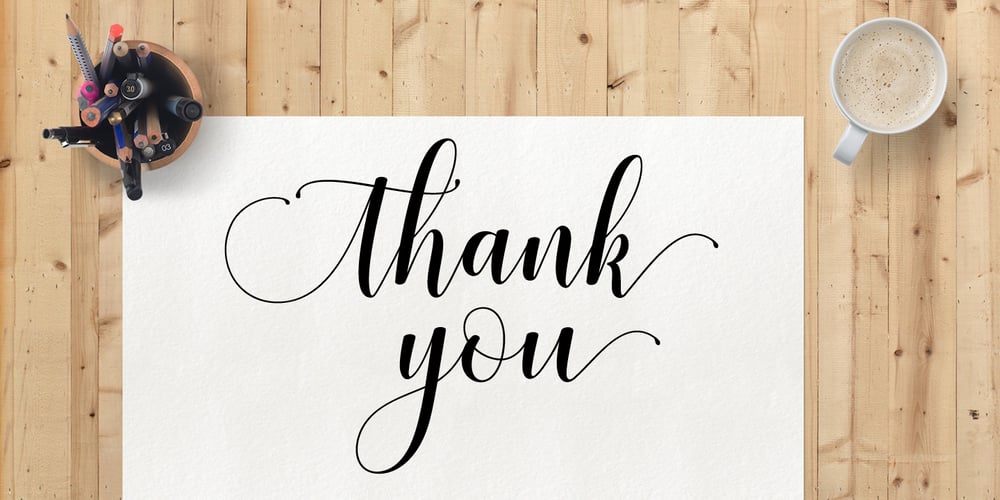
Honilad Script Font Family was designed by Barmawi and published by Barland Studio. Honilad Script contains 1 styles and family package options. Honilad Script is a unique blend of classic and modern font. With an imperfect style up and down, like a dancing letters, smooth, clean and simple. Honilad Script perfect for wedding, event, invitation, escort card, table number, header menus, display, logos, slider blog, custom address, stamps, packaging, greeting card, etc. Honilad Script includes alternate glyph and beautiful swirl in a font including stylistic sets, Ligatures etc. The OpenType features can be accessed by using Open Type savvy programs such as Adobe Illustrator CS, Adobe Indesign & CorelDraw X6-X7 and Microsoft Word. And this Font has given PUA unicode (specially coded fonts). so that all the alternate characters can easily be accessed in full by a craftsman or designer. If you don’t have a program that supports OpenType features such as Adobe Illustrator and CorelDraw X Versions, you can access all the alternate glyphs using Font Book (Mac) or Character Map (Windows). If you have any question, don’t hesitate to contact me. Thank You!